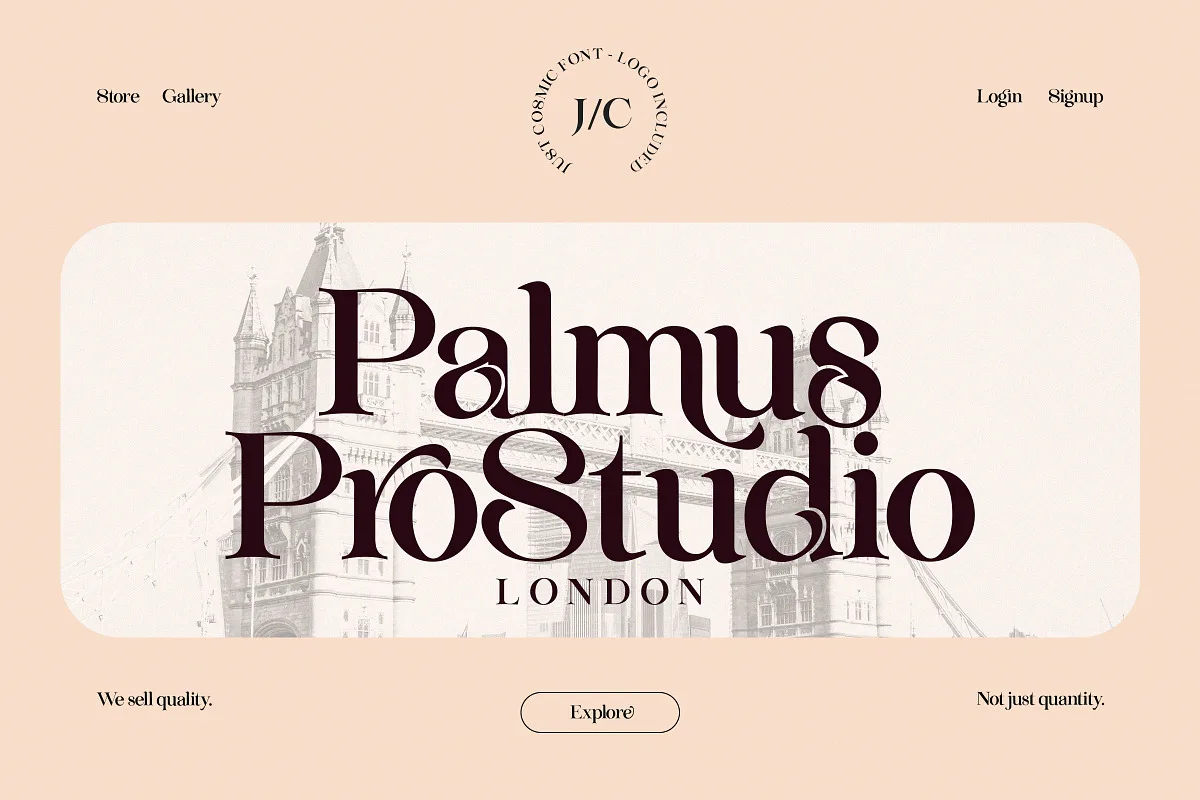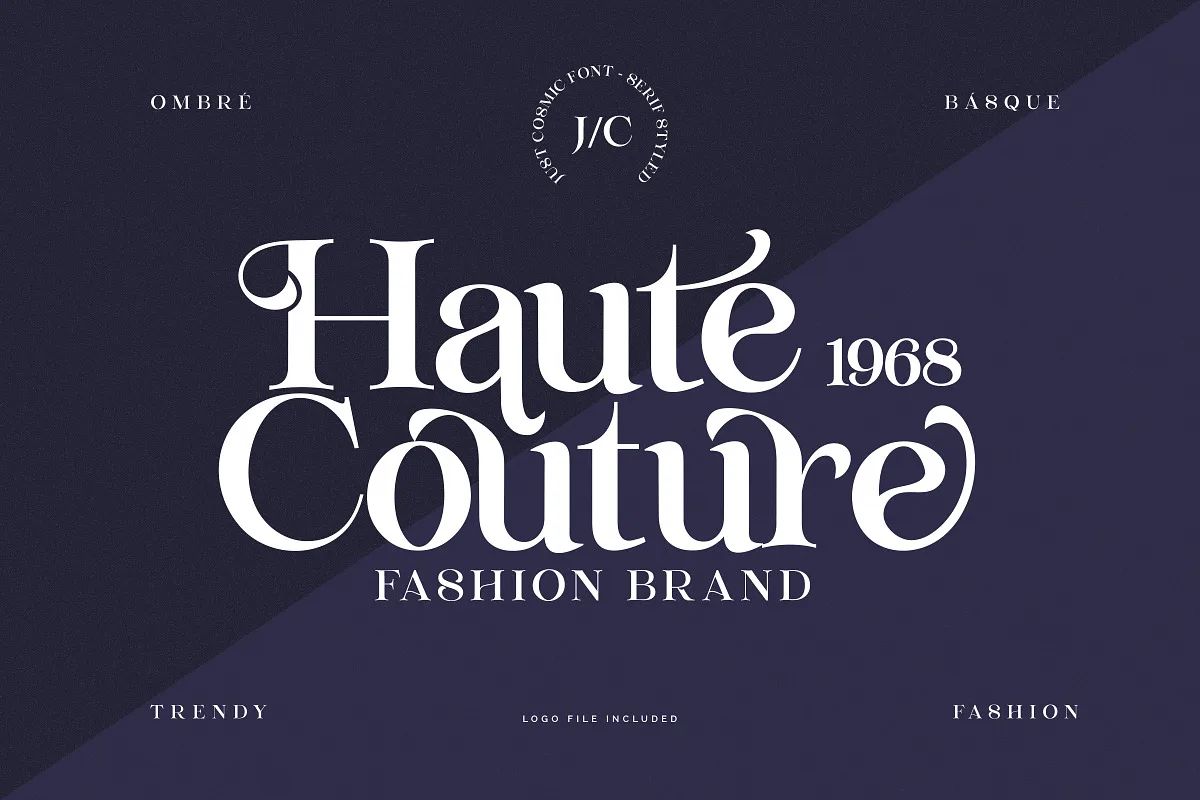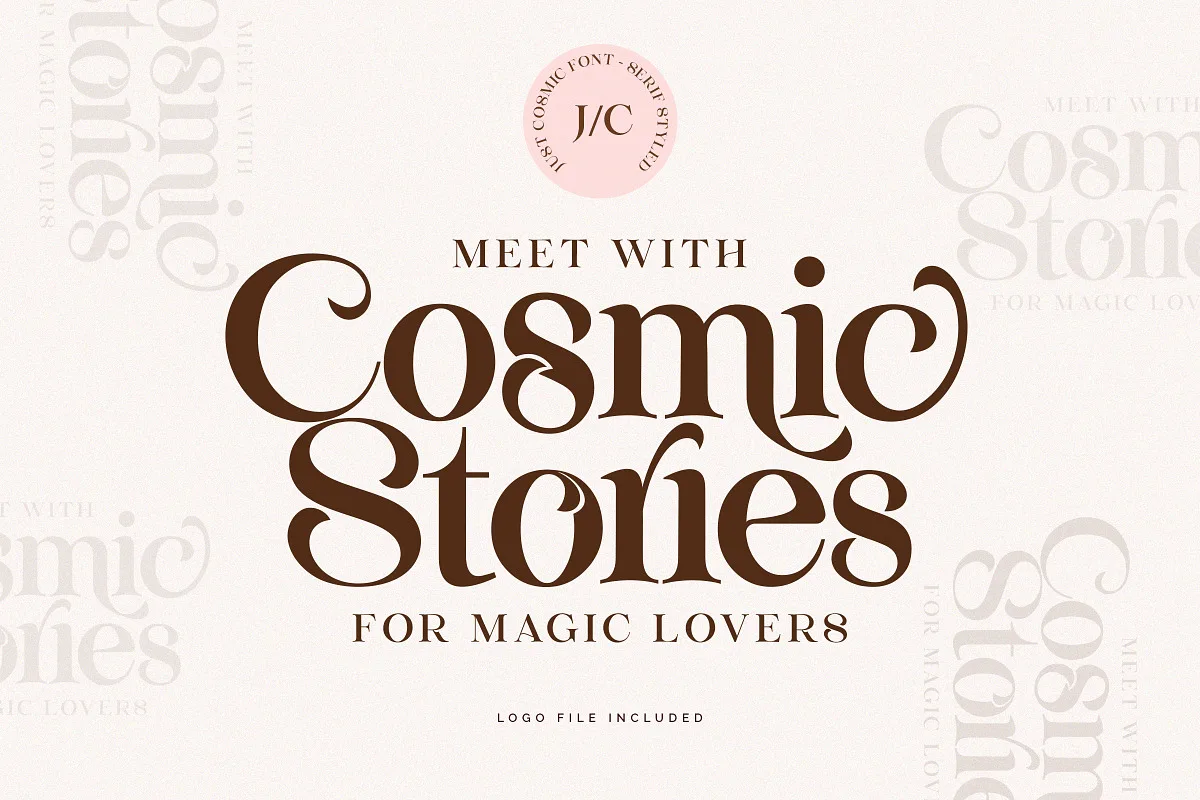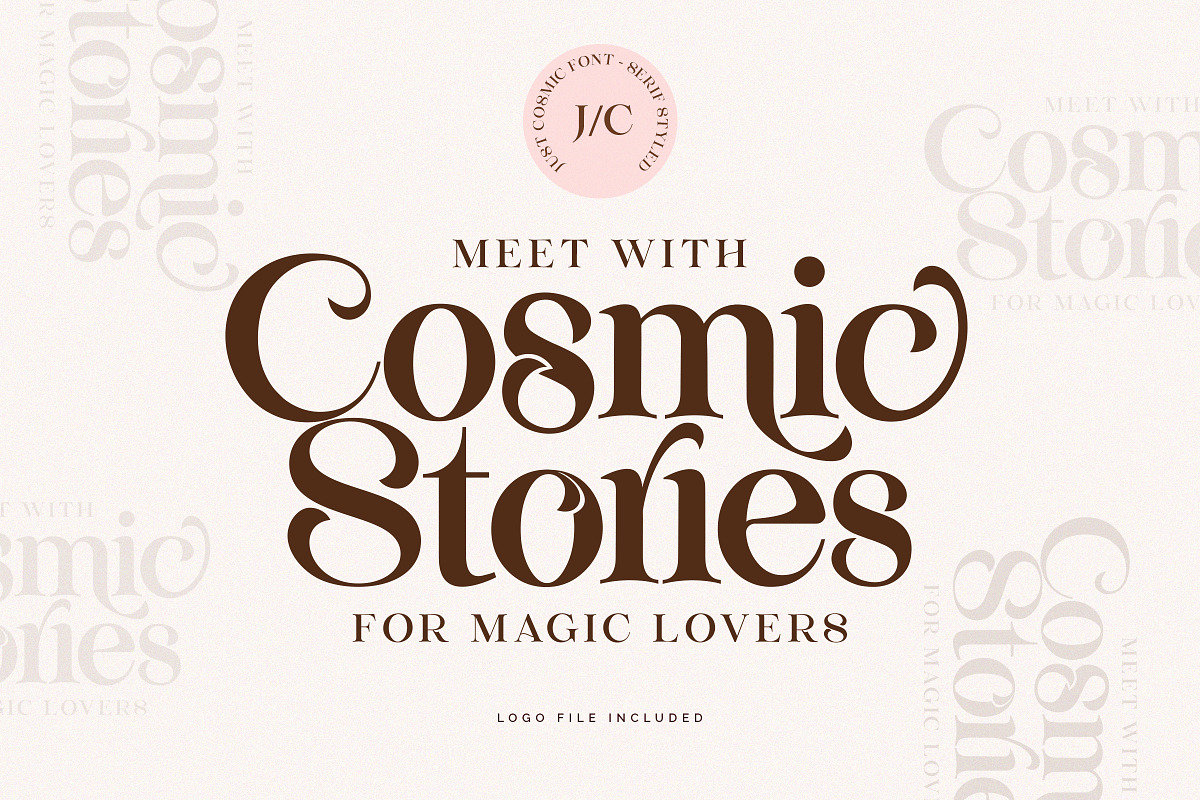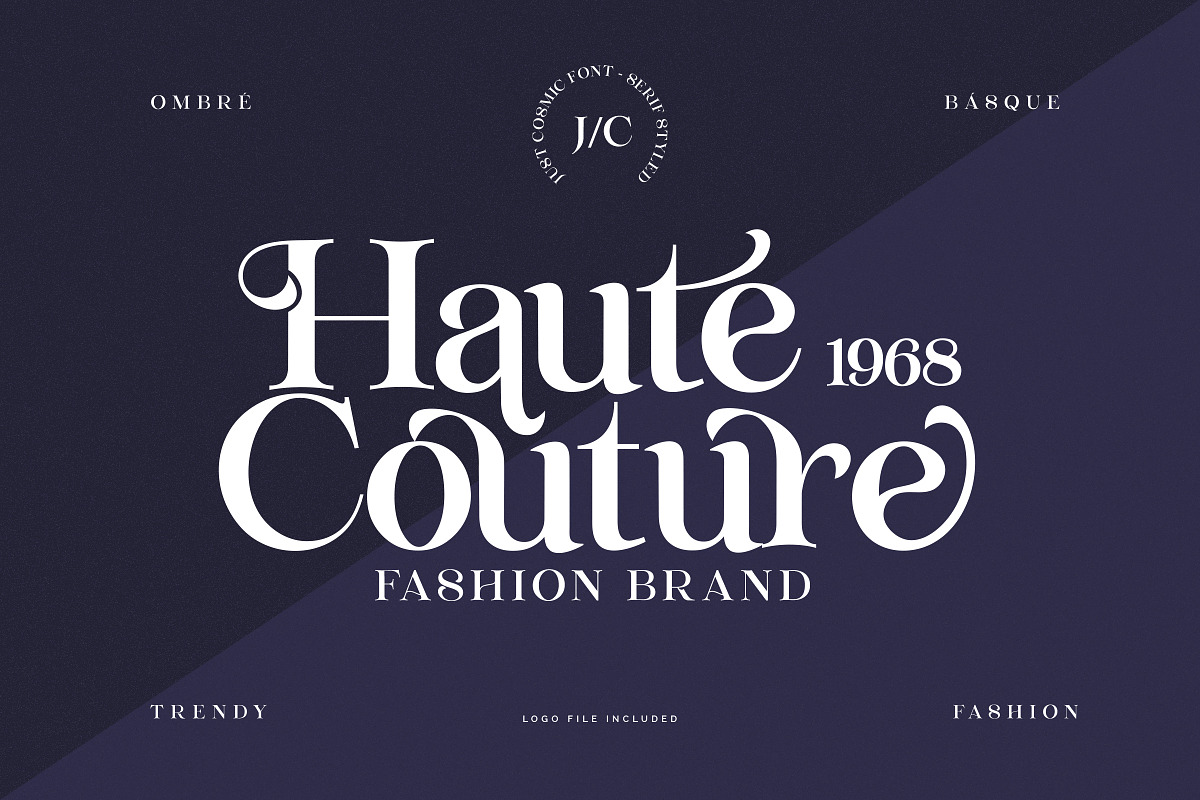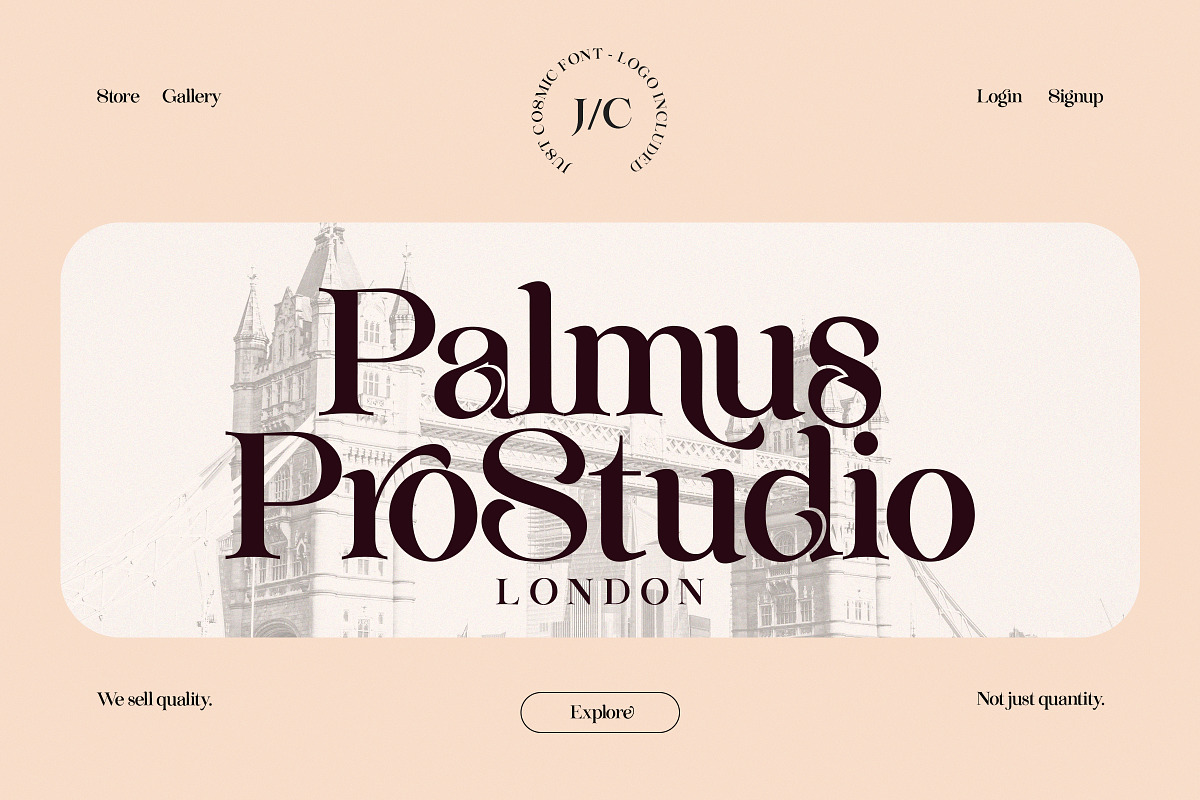
Just Cosmic is a magical modern vintage font will stylistic alternates and beautiful cutout ligatures. This font pack also contains 25 Premade Logos.
With beautiful stylistic alternates and ligatures the font will be your best choice for both text type and display Type. It is designed to fill the text gaps between serif text lines. The font is clean and minimal, to display your text uniquely on both print and web.
It is perfect for cursive style, chalkboard style, both modern and vintage styles, feminine style, premium style, rustic, and handwriting style branding. The logos and fonts are perfect for Circut, Silhouette vinyl, tattoo, and bullet journal inspiration.